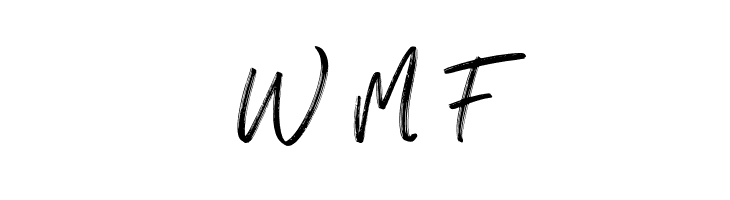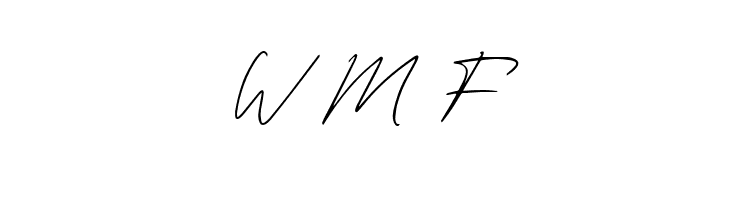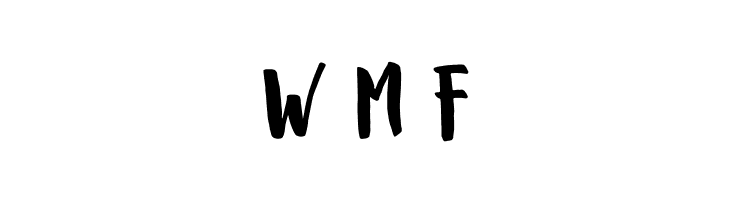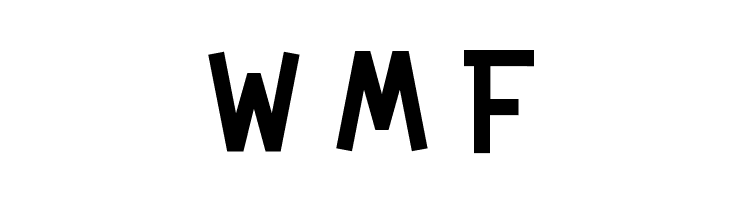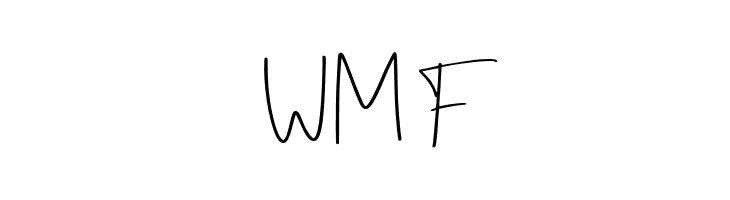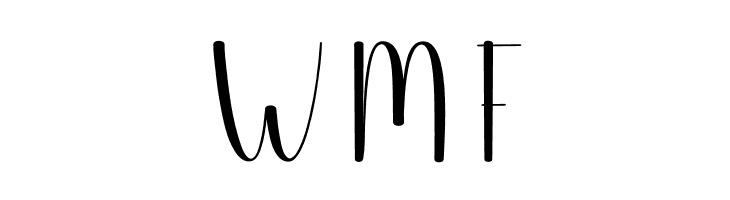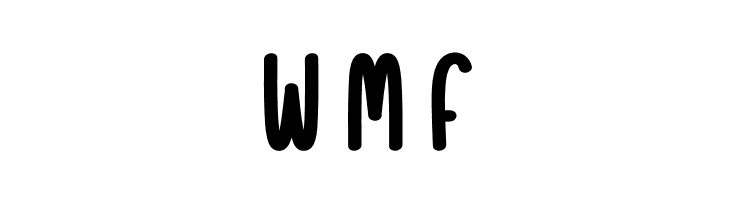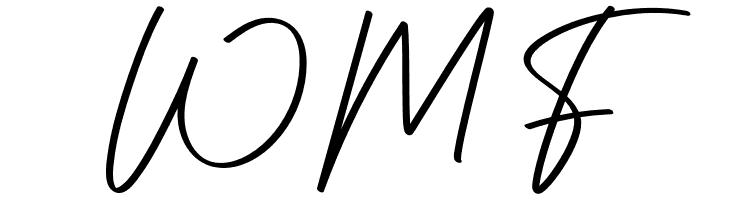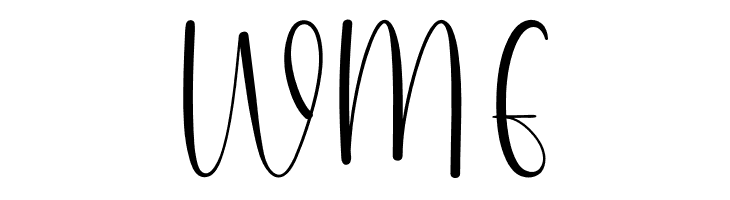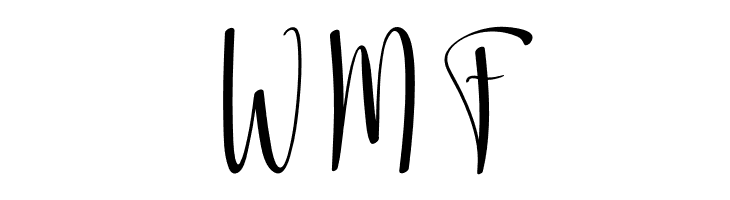
A playful and whimsical font with tall, narrow characters and a mix of thick and thin strokes.
Playful handwritten font with rounded edges.
A playful, bold, and rounded font with a hand-drawn style.
A playful, bold font with a whimsical, hand-drawn style.
A playful, bold, hand-drawn font with rounded strokes and a whimsical style.
A playful, bold font with rounded strokes and decorative flourishes.
A playful, bold font with rounded, bubble-like characters.
A playful, bold handwritten font with a whimsical and friendly style.
A playful and bold font with exaggerated curves and a lively personality.
A playful handwritten font with smooth, rounded strokes and a casual style.
A bold, expressive handwritten font with thick, flowing strokes.
A delicate and flowing script font with elegant, cursive letterforms.
A playful and elegant script font with a handwritten, flowing style.
A bold, flowing script font with dynamic and elegant characteristics.
A bold, playful font with rounded, textured edges resembling fluffy clouds.
A bold, flowing script font with dramatic curves and calligraphic flair.
A playful, bold font with rounded edges and a friendly appearance.
A modern, geometric font with clean lines and balanced characters.
A geometric and bold font with clean lines and balanced proportions.
A bold, brush-style font with a hand-drawn, energetic appearance.
A dynamic, expressive handwritten font with brush-like strokes.
An elegant, cursive font with fluid, connected letters and varying line thickness.
A bold, candy-striped decorative font perfect for festive designs.
A bold, playful font with a hand-drawn, artistic style.
A playful and elegant script font with a modern twist.
A playful, handwritten font with thin, consistent strokes and a casual vibe.
A dynamic, expressive handwritten font with fluid strokes and a natural flow.
A flowing, elegant script font with a natural handwriting style.
Playful, rounded sans-serif with a hand-drawn look.
Playful, hand-drawn sans-serif with tall, narrow forms.
Playful, decorative script with festive loops and high contrast.
Tall, narrow, handwritten sans-serif with a playful style.
Playful, decorative script with tall, narrow, and festive letterforms.
A lively handwritten script with tall, expressive letterforms.
Whimsical handwritten script with tall, narrow, and expressive letterforms.